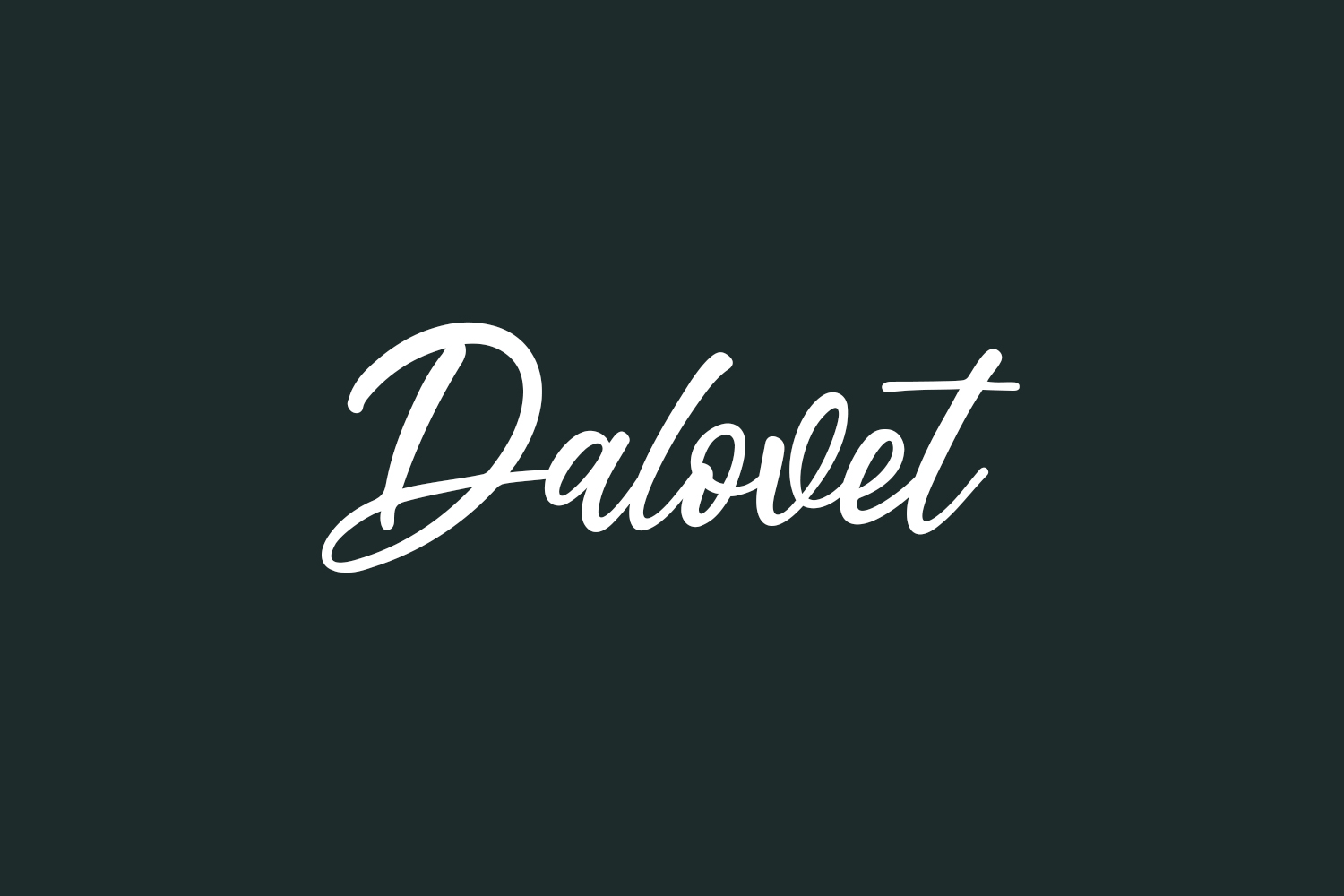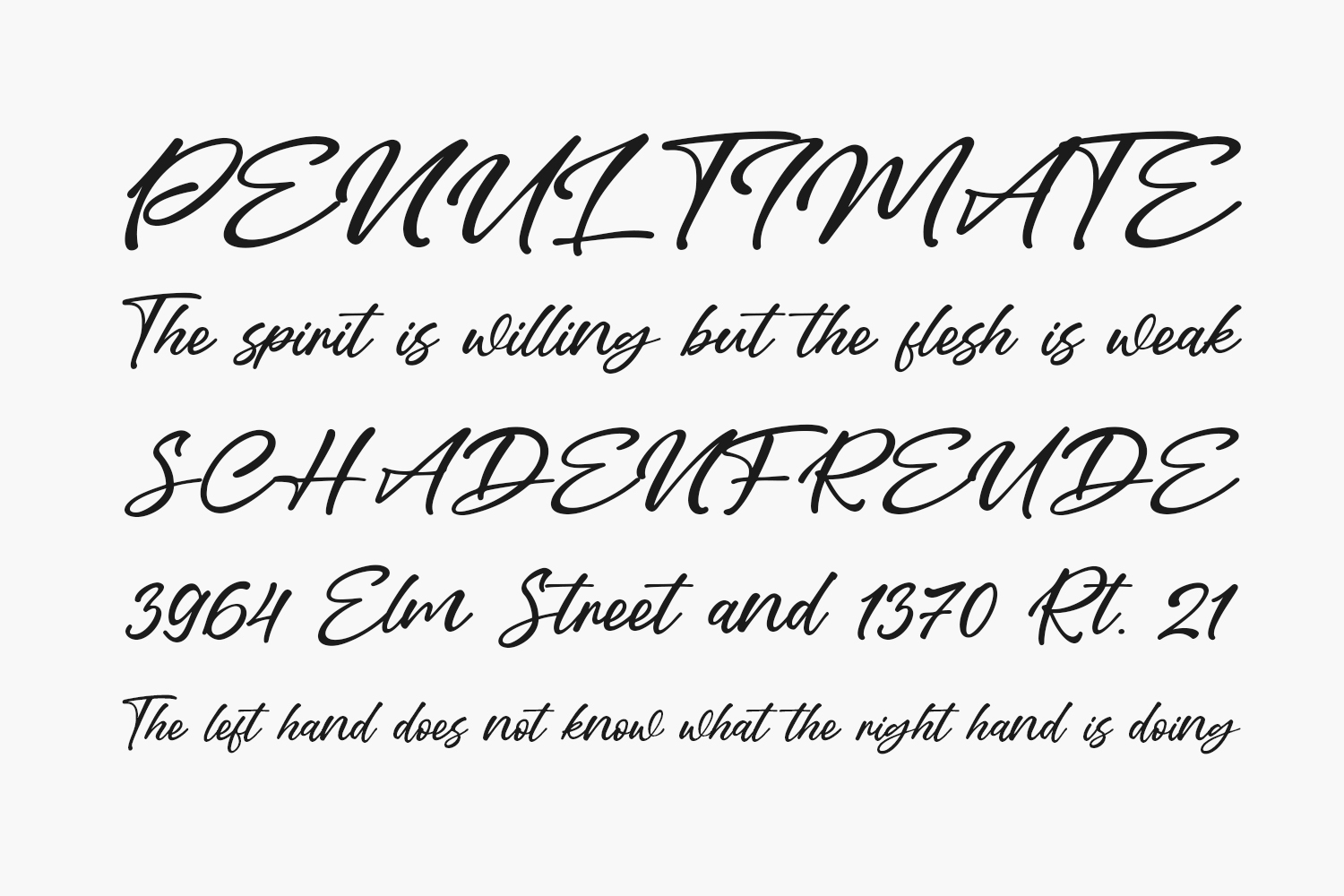
Dalovet Free Font is a modern and elegant script typeface that exudes a sense of beauty and refinement. Its flowing lines and delicate curves convey a sense of grace and poise, while its modern and sophisticated style gives a feeling of elegance and chic. The font creates an aura of class and timeless beauty, making it the perfect choice for any project seeking to convey a sense of luxury and refinement. The Dalovet font is perfect for creating designs that convey a sense of modern beauty and elegance.